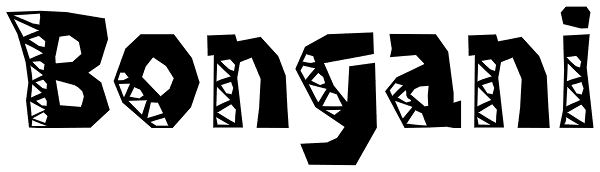
Bongani
Bongani has its origins in wood-carved African design and art. The letter forms are informal and asymmetric and the "decorative" elements are matched to each letter shape and have no mechanical rigidity. It is was designed for situations that...